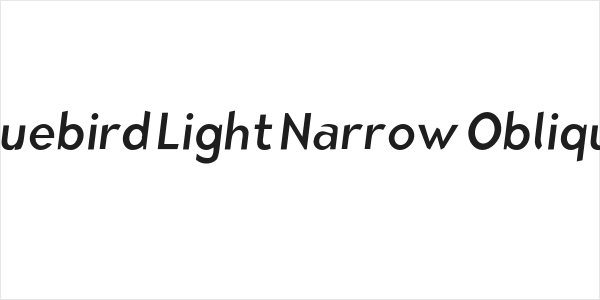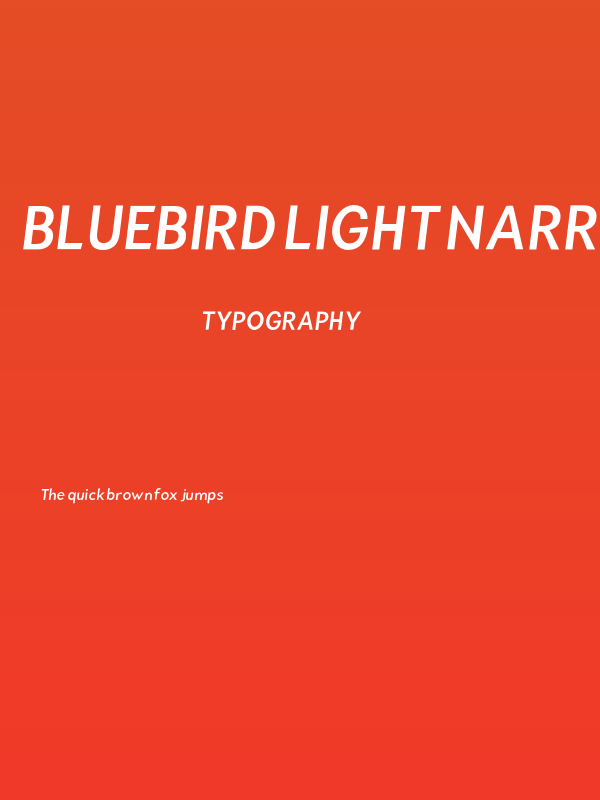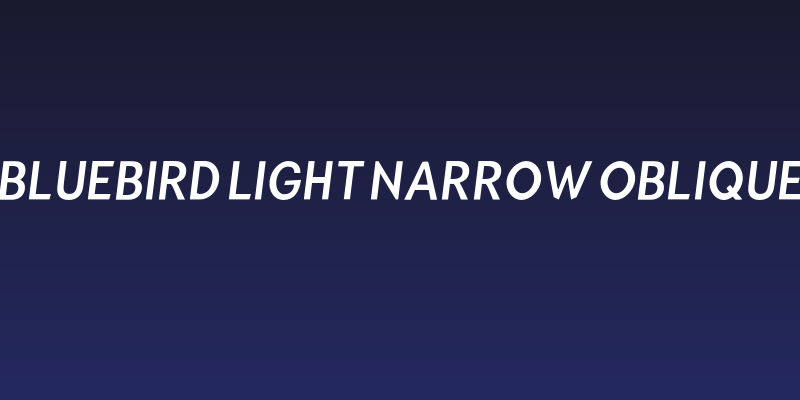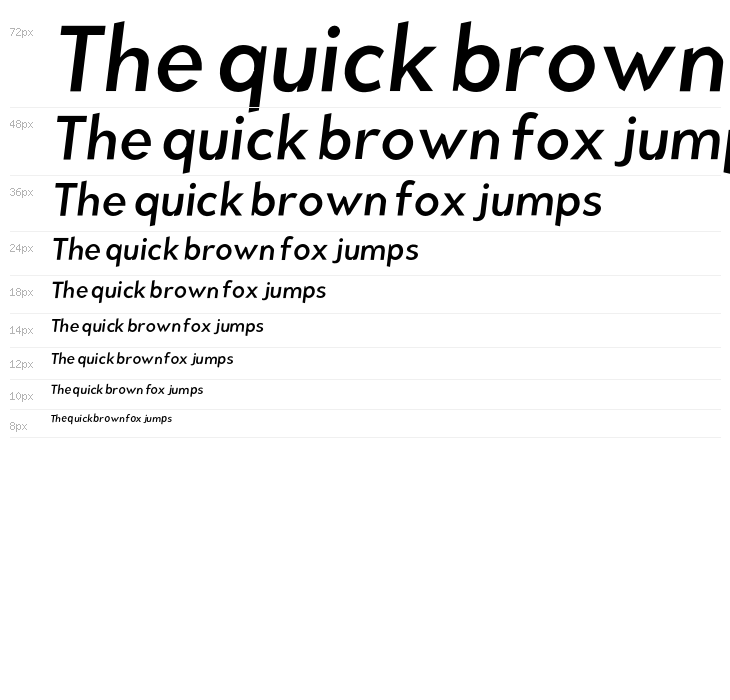
Bluebird Light Narrow Oblique Font
Bluebird Light Narrow Oblique Description
This font exhibits a sleek and modern design with a light weight and narrow width, giving it an elegant and streamlined appearance. The oblique style adds a dynamic and forward-leaning character, enhancing its contemporary feel. The characters are well-proportioned, with a consistent stroke width that maintains readability while conveying a sense of sophistication. The spacing between characters is tight, which contributes to its compact and efficient look. This font is versatile, suitable for a variety of design projects that require a clean and professional aesthetic.
| Proposed Projects | Ideal for branding, advertising, modern web design, and editorial layouts. |